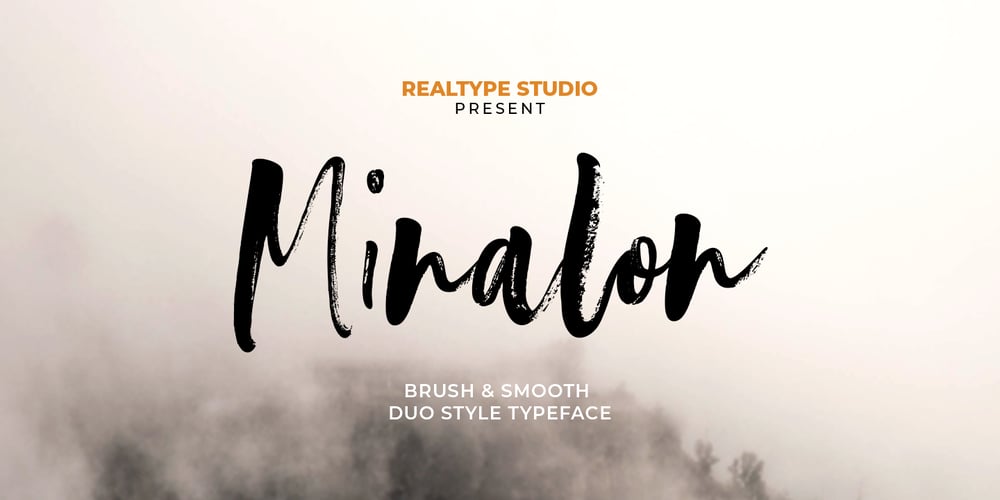
Minalon Brush
Minalon Brush font
Minalon Brush Font Family was designed by Alam Syahril and published by Realtype. Minalon Brush contains 2 styles and family package options. Minalon is a brush script written with a natural brush.Written with quick movements using a brush pen. Handwritten and neat fonts.With quick dry strokes and a typical Minalon style.Suitable for use in title designs such as clothing, product packaginginvitations, title books, stationery designs, quotes, branding, social media logos, greeting cards, t-shirts, packaging design, posters and more.Minalon has now adopted two styles; a textured version, and a smooth version.It gives you the option to change your font style, whether you like the brush style rougher handmade, or that has a finer finish,so you can already choose which style you want to use for your designs.